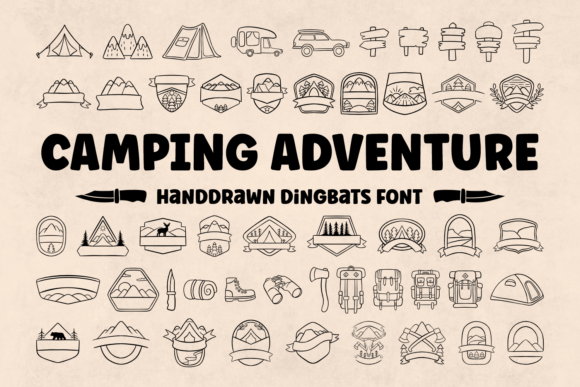
Embark on a Typography Adventure with Camping Adventure Font
I’ll never forget the time I was working on a camping-themed project for a client, and I just couldn’t find the right font to bring the design to life. The project required a mix of bold typography and whimsical elements that captured the essence of the great outdoors. I scoured the internet, tried out numerous fonts, but nothing seemed quite right. That was until I stumbled upon the Camping Adventure font – a game-changer for any designer, crafter, or creative hobbyist looking to add a touch of adventure to their work.
I’ve had the pleasure of working with the Camping Adventure font, and here’s my honest review:
- ✨ Extensive library of dingbats: From badges to tools and equipment, this font has everything you need to create stunning camping-themed typography.
- ✅ Highly versatile: Perfect for clothing items, camping signs, websites, advertising materials, and more.
- ⚠️ Limited character set: As a dingbats font, it may not be suitable for body text or lengthy paragraphs.
- 🤔 Learning curve: With so many glyphs and symbols, it may take some time to get familiar with the font.
The Story Behind Camping Adventure Font
The Camping Adventure font was designed with the outdoors in mind. The creator, a passionate designer and nature lover, wanted to craft a font that would capture the essence of camping and the great outdoors. With a focus on versatility and usability, the font was designed to be perfect for a wide range of applications, from clothing items to websites.
Q: What is the Camping Adventure font best used for?
A: The Camping Adventure font is perfect for camping-themed projects, including clothing items, signs, websites, and advertising materials.